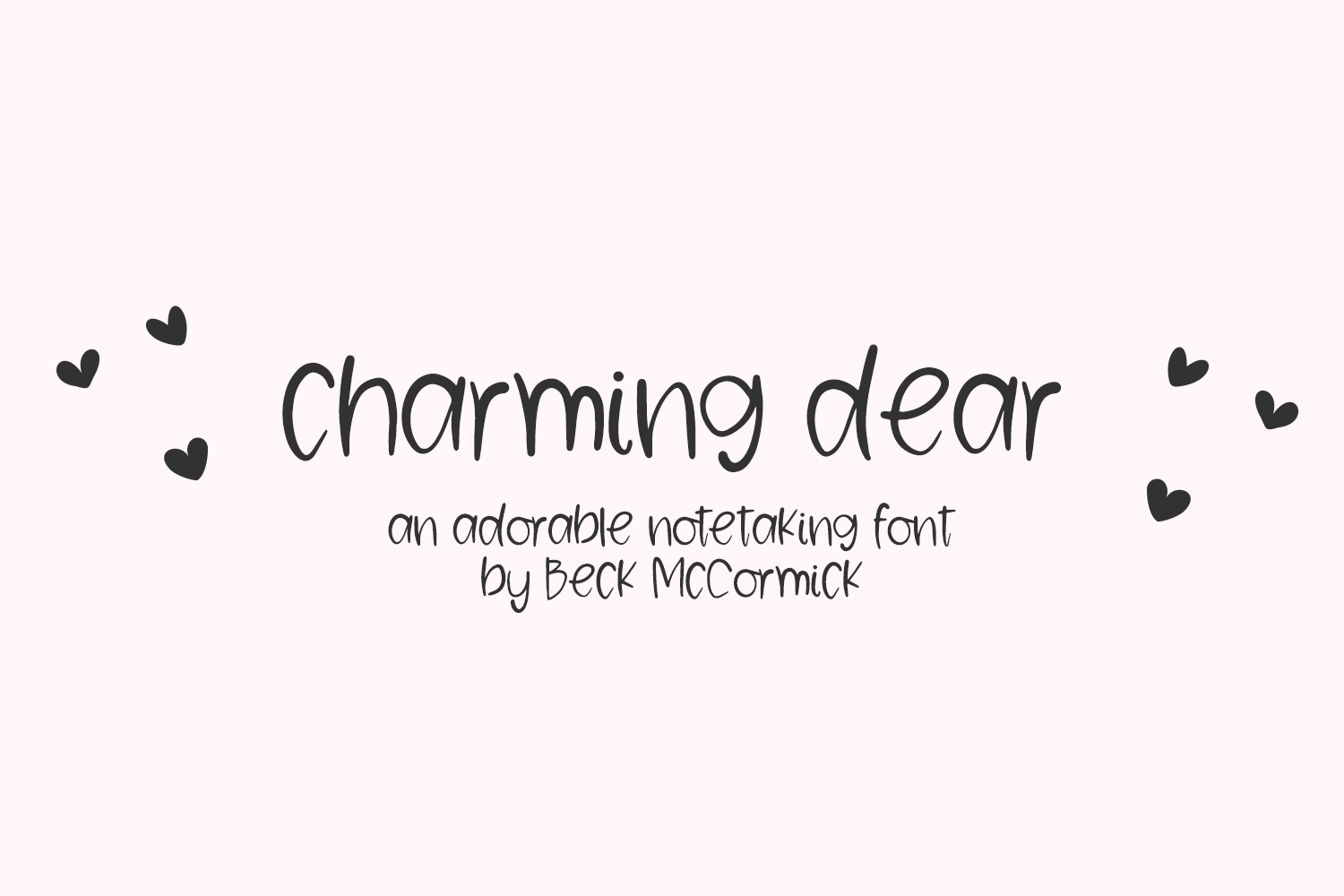
Charming Dear is a neat & tidy hand lettered font with varied stroke thickness. It’s the perfect fit for your digital planner or note-taking app, and is super legible. Charming Dear will be a great fit for your cute home decor projects, your Cricut or Silhouette machine, or logo & branding projects, as well as social media or marketing graphics.